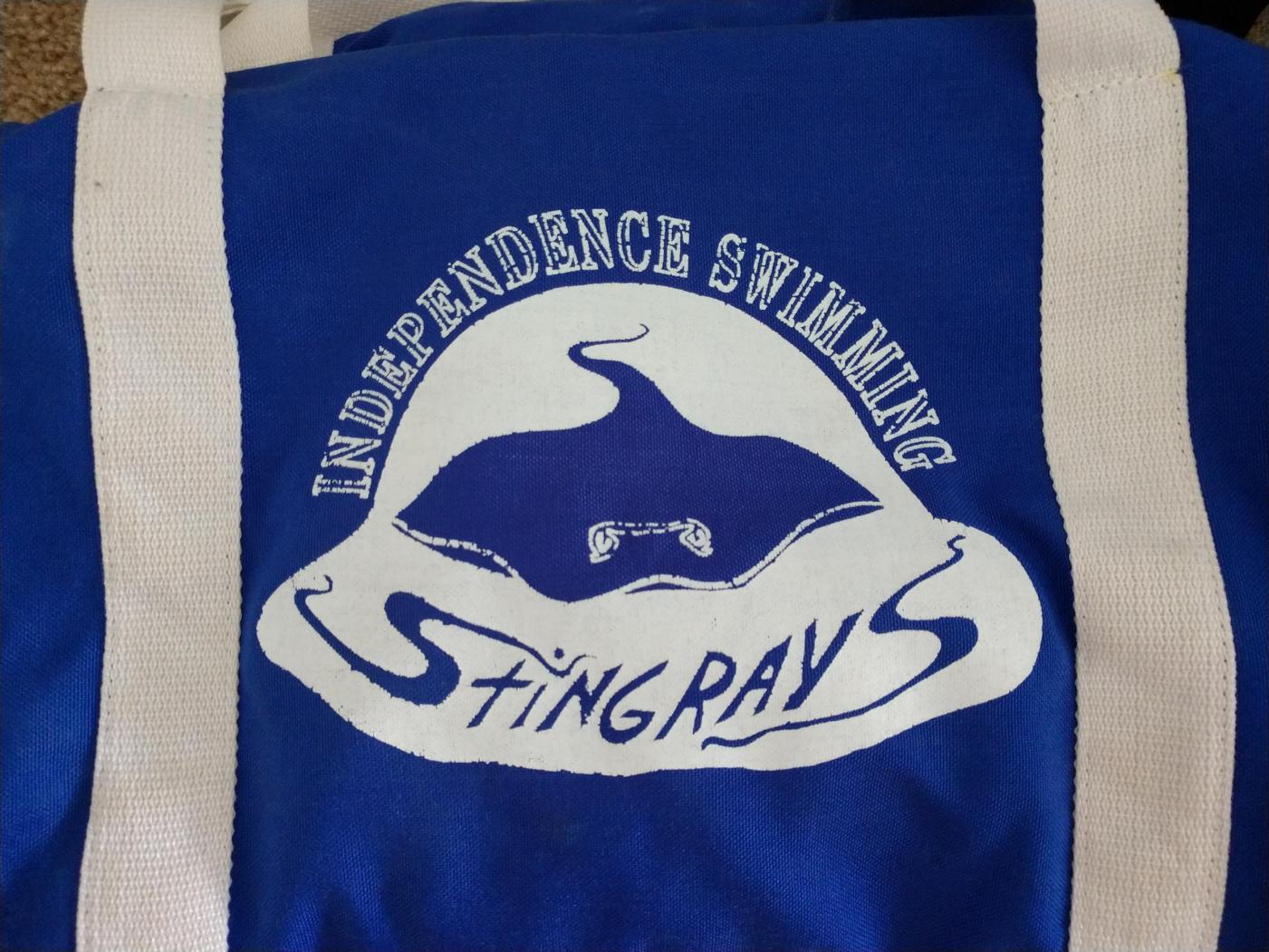
I need to find this font (INDEPENDENCE SWIMMING)
I need to find the font of the text "INDEPENDENCE SWIMMING". Or at least something similar, condensed look, similar serifs and the negative thin lines in letters (I can make them manually if you know a font that all the other features are same or very similar). Thank you.